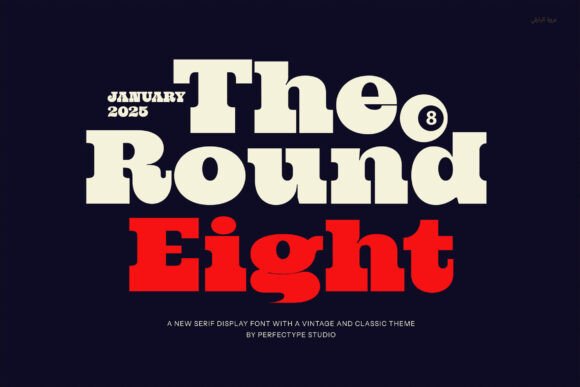
The Round Eight Font: Elevating Small Business Branding
Why The Round Eight Serif Font Transformed My Candle Label Design
When I first started selling handmade soy candles, I quickly realized that The Round Eight serif font was the missing piece in my packaging design journey. For months, I had been using generic free fonts that made my products look amateurish on the shelf and inconsistent across my online store. As a small business owner, you know that your label is often the first handshake with a customer, and mine felt limp. Switching to The Round Eight changed everything because its bold and distinctive slab serif structure immediately gave my brand a sense of established quality. The thick, rounded edges provided a unique, eye-catching presence that stood out against the minimalist white labels of my competitors. It wasn't just about picking pretty fonts; it was about finding a typeface that communicated warmth and reliability before a customer even lit the wick.
Using The Round Eight for Packaging and Product Labels
Incorporating The Round Eight into physical product design requires understanding how its sturdy structure translates from screen to print. When designing for candle jars, skincare bottles, or bakery boxes, readability at small sizes is paramount. This serif typeface excels here because the weight of the letters remains consistent even when scaled down for ingredient lists or safety warnings. I found that using The Round Eight for the primary product name created a vintage charm that felt modern rather than dated. Unlike thin script fonts that disappear on textured paper or dark glass, the bold nature of this font ensures legibility. For entrepreneurs creating their own packaging mockups, remember that this display font needs breathing room. Pairing it with ample negative space allows those distinctive rounded edges to shine without making the label feel cluttered or overwhelming to the shopper browsing a market stall.
The Round Eight in Social Media Graphics and Digital Ads
Digital consistency became effortless once I integrated The Round Eight serif font into my Instagram templates and website banners. Social media moves fast, and users scroll quickly, so your typography needs to stop the thumb. The unique, eye-catching personality of this font works exceptionally well for headline overlays on Reels covers, carousel slides, and promotional graphics. I noticed that posts featuring The Round Eight as the primary header text received higher engagement because the bold letterforms created a clear visual hierarchy. When designing for mobile screens, avoid using this heavy slab serif for long body paragraphs; instead, reserve it for short, punchy phrases, sale announcements, or quote cards. This strategic use helps maintain brand recognition across platforms. Whether you are promoting a new collection or sharing a behind-the-scenes story, this creative font anchors your digital visuals with a professional polish that builds trust with your audience.
Pairing The Round Eight with Clean Sans Serif Fonts
A successful brand identity relies heavily on effective font pairing, and The Round Eight plays beautifully with clean sans serif typefaces. Because The Round Eight is such a bold and distinctive slab serif, it demands a supporting actor that is quiet and functional. In my own branding, I pair it with a geometric sans serif for body copy, pricing tables, and secondary information. This contrast between the vintage charm of the header font and the modern neutrality of the body text creates a balanced, sophisticated aesthetic. Avoid pairing The Round Eight with other decorative or handwritten fonts, as they will compete for attention and create visual chaos. Think of this serif as the star of the show; let your supporting fonts handle the logistical details. This combination is particularly effective for café menus, where the dish names need character but the descriptions and prices require absolute clarity and quick scanning.
Applying The Round Eight to Logo Design and Business Cards
For entrepreneurs considering a rebrand, The Round Eight offers a sturdy foundation for logo design and stationery. Its thick, rounded edges convey a sense of friendliness and approachability that sharper, more traditional serifs sometimes lack. When I redesigned my business cards, using this typeface for my business name instantly signaled that my brand was both artisanal and professional. However, because it is a display font with significant personality, it works best for wordmarks or logotypes rather than complex icon-based logos. If you are using it for a logo, test it extensively in black and white first to ensure the unique shapes hold up without color support. On business cards, this font invites touch and interaction; it feels substantial. Just be mindful of tracking (letter spacing); giving the characters slightly more room can enhance readability and add an air of luxury to your printed collateral.
Improving Customer Perception Through Consistent Typography
Ultimately, choosing The Round Eight is about shaping how customers perceive the value of your offerings. Typography is a silent ambassador; it speaks volumes about your attention to detail and brand maturity. When I standardized my visuals using this bold slab serif, customers began commenting on how "high-end" and "cohesive" my shop looked. This shift wasn't accidental. The vintage charm combined with a modern twist signals that you respect tradition but operate in the present. It tells the buyer that your product is crafted with intention. Whether you are a baker, a beauty brand, or a boutique owner, consistent use of premium fonts like The Round Eight reduces cognitive load for your customers. They recognize your style instantly, which fosters loyalty. By treating typography as a core business asset rather than an afterthought, you elevate every touchpoint from a simple transaction to a memorable brand experience.